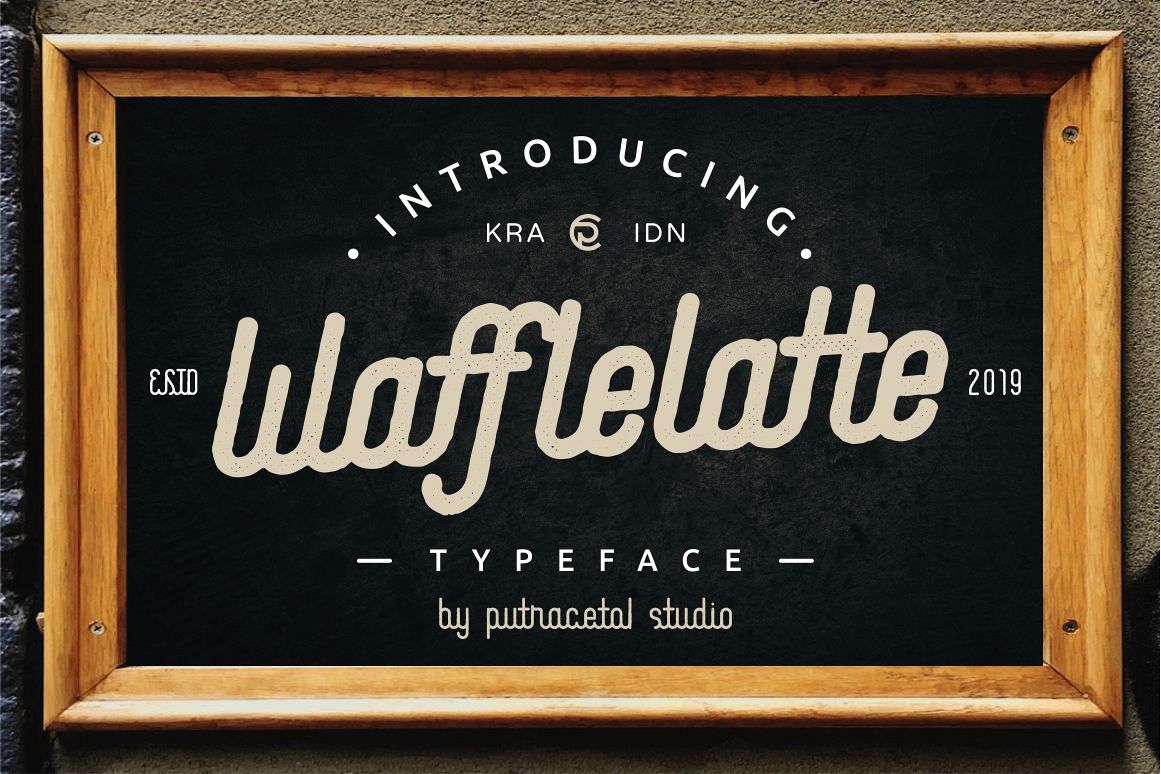
Waffle Latte
Introducing!!Waffle Latte is a monoline script typeface. Waffle Latte typeface come with 2 weights (regular and bold) and 8 styles.
You can use this font for making an awesome logo, branding, letterhead, invitations,quote, print, card clothing brand, vintage looks,and so much more!.
This typeface also contain ligatures and alternate.
Comes with feature :
- Alternate
- Number, Punctuation And Symbols
- Ligature